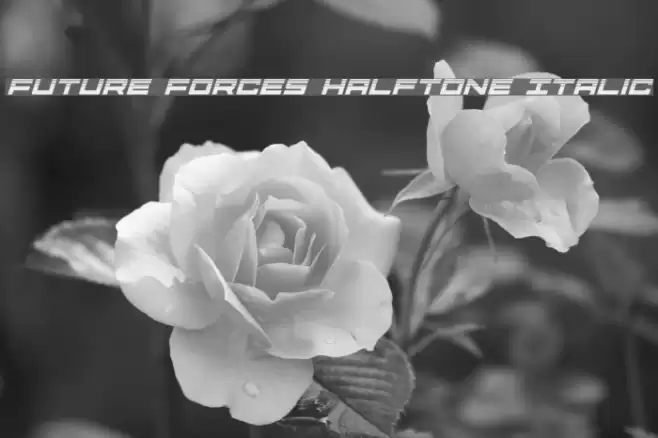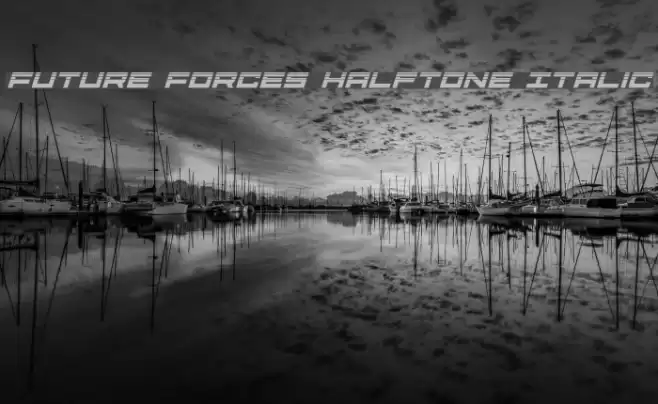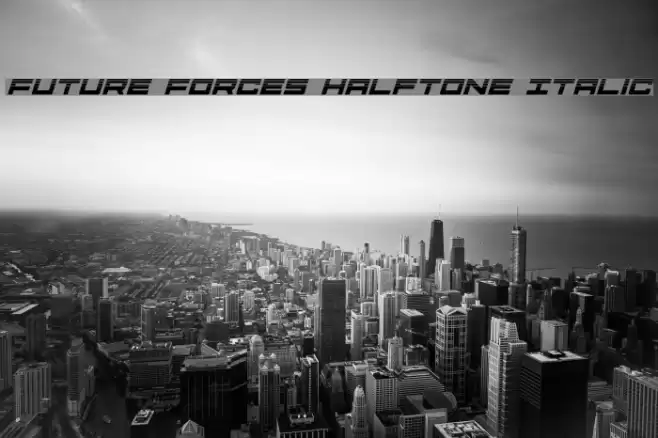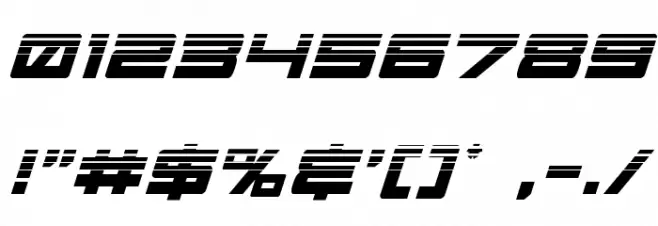
Future Forces Halftone Italic Font
Future Forces Halftone Italic Description
This font features a futuristic and dynamic design with a halftone effect that gives it a unique, digital appearance. The italicized style adds a sense of motion and speed, making it ideal for projects that require a modern and edgy look. The characters are bold and angular, with a consistent slant that enhances the overall aesthetic. The uppercase and lowercase letters maintain a uniform style, while the numerals and special characters complement the font's distinctive design. The halftone pattern within each character adds depth and texture, making it stand out in any application.
A futuristic, italicized font with a halftone effect and bold, angular characters from Uncategorized fonts.
- Proposed Projects: Ideal for sci-fi themed designs, video game titles, tech branding, and futuristic posters.